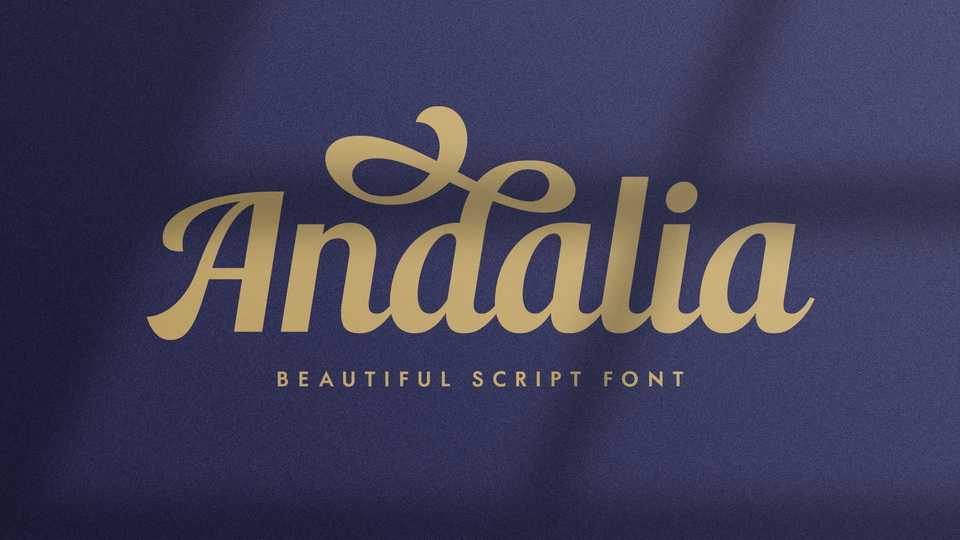
Download Andalia font, a romantic script typeface, that is modern, casual, and elegant. Analia is created with slanted strokes and a clean ornament that visualizes the more dramatic typographic looks.